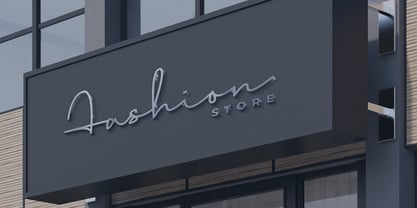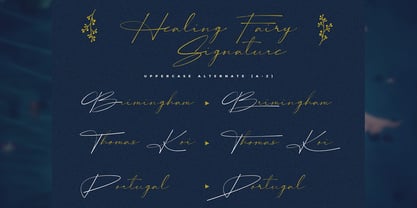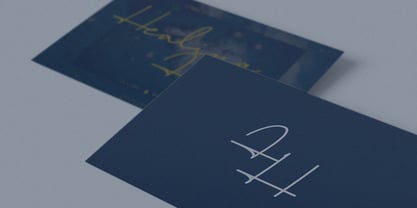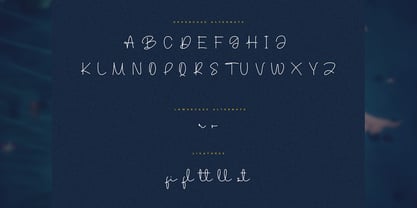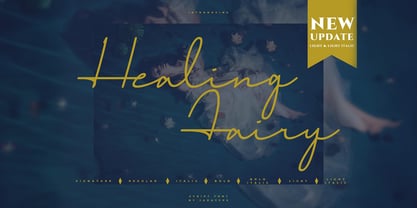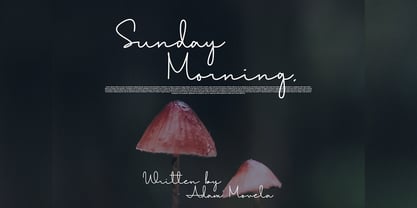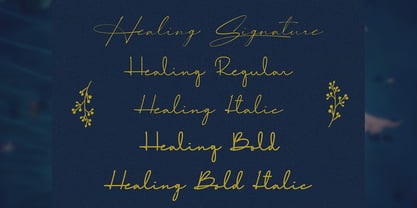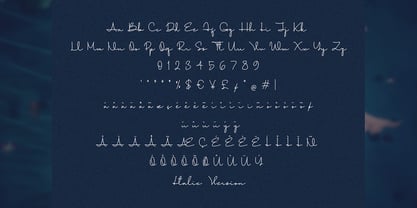
Healing Fairy
by Jadatype
The Healing Fairy Font Family was designed by Jada Akbal and published by Jadatype. Healing Fairy contains 7 styles and family package options. More about this family
Healing Fairy is a font with a stylish signature style. suitable for logotype, social media, products, advertisements, and so on. contains standard English letters, numbers, punctuation, and several accents that support multilingualism.
Designers: Jada Akbal
Foundry: Jadatype